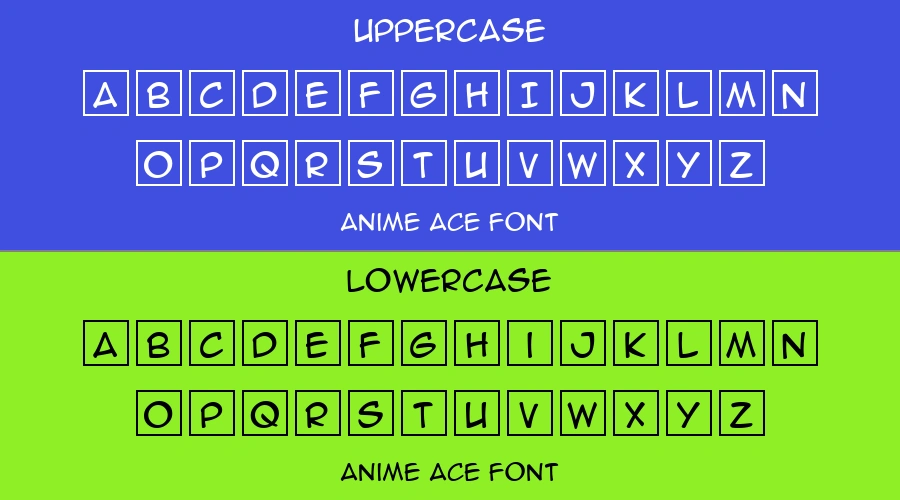
About Anime Ace Font
Designed with precision, Anime Ace Font merges engineered curves with generational appeal in every character. This versatility makes it particularly effective for marketing materials, where flexibility and scholarly value directly impact communication quality. Each letterform demonstrates meticulous craftsmanship.
Technical excellence shines through elements like hand-drawn quality and initial forms, enhancing typographic versatility. In instruction steps settings, Anime Ace Font proves its worth through superior numerical alignment. The thoughtful execution of joint detail and cultural resonance ensures professional results.
Anime Ace Font |